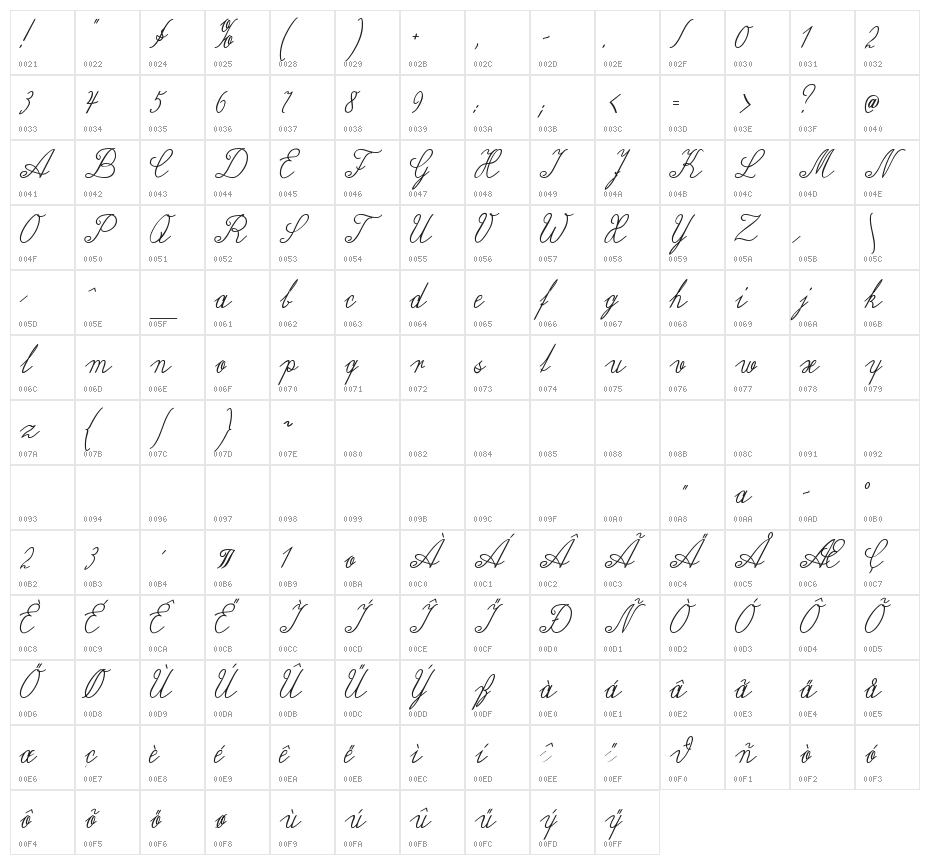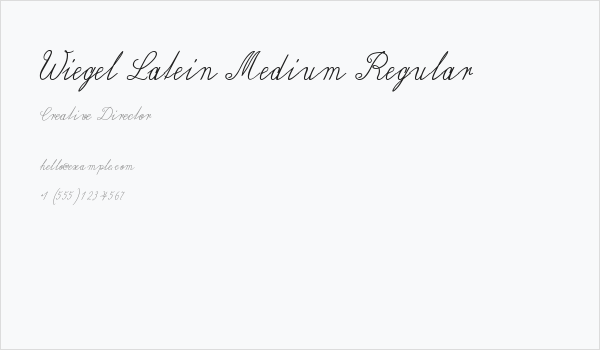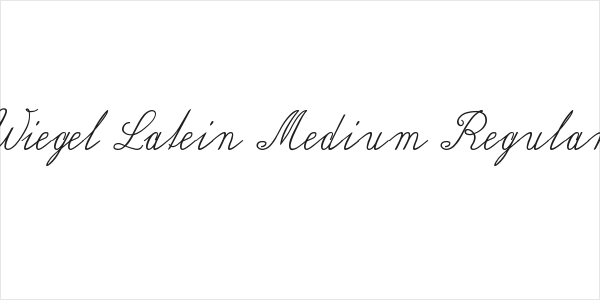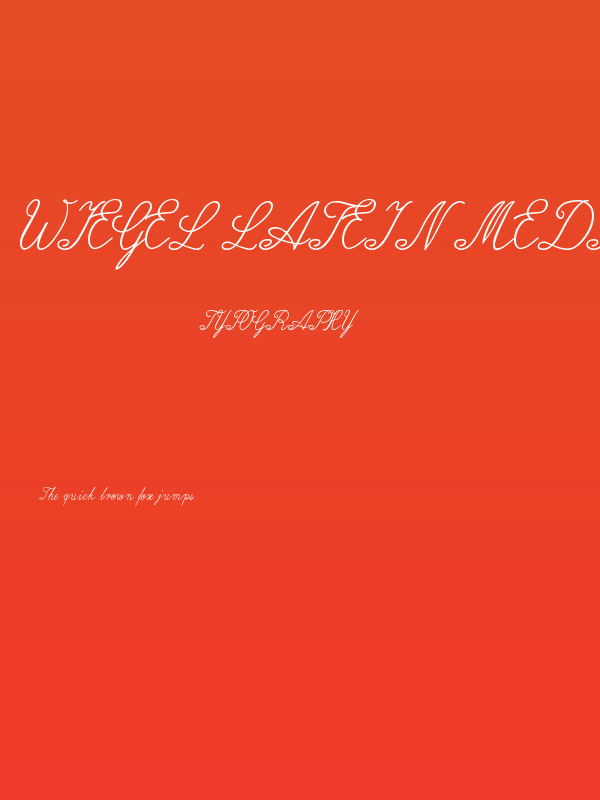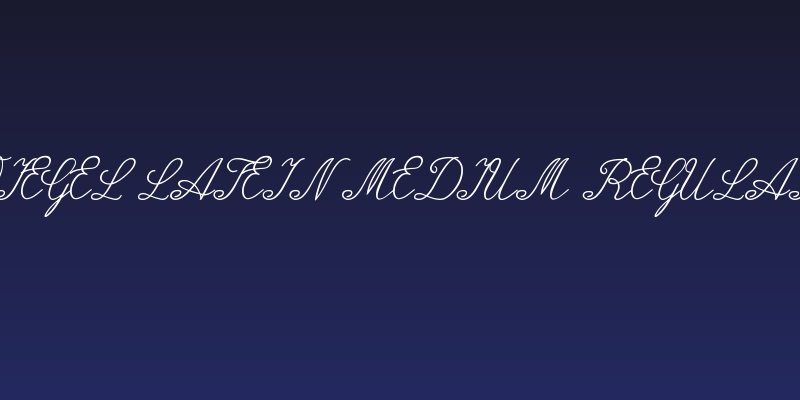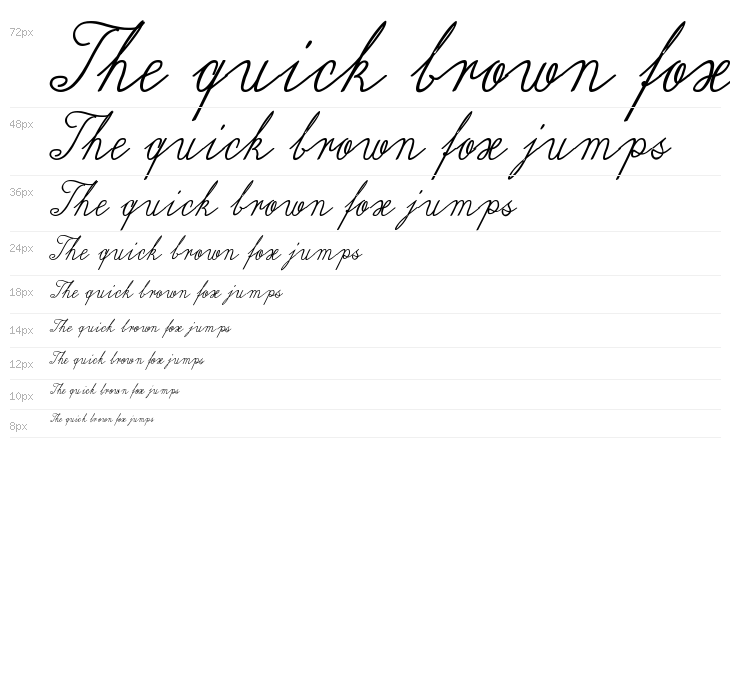
Wiegel Latein Medium Regular Font
Wiegel Latein Medium Regular Description
This font exudes elegance and sophistication with its flowing, cursive style. Each letter is intricately designed with smooth curves and delicate loops, creating a sense of fluidity and grace. The uppercase letters are particularly ornate, featuring elaborate swirls that add a touch of grandeur. The lowercase letters maintain a consistent style, with a slightly more restrained design that ensures readability. The numerals and special characters are crafted with the same attention to detail, seamlessly integrating with the overall aesthetic. This font is ideal for projects that require a touch of elegance and refinement, such as wedding invitations, formal event programs, or luxury brand logos.